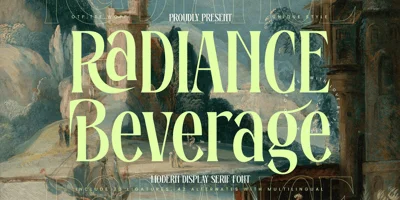
Radiance Beverage Font
Radiance Beverage Font is perfect for energy drink branding, refreshing juice packaging, sparkling water labels, vibrant cocktail menus, health beverage marketing, sports drink campaigns, and illuminating liquid refreshment projects.
What makes Radiance Beverage Font exciting is its energizing brilliance and liquid vitality, featuring luminous letterforms that capture the essence of refreshing hydration while delivering sparkling visual energy and beverage authenticity.
The Radiance Beverage Font family includes Light, Regular, Medium, Bold, and Heavy weights, plus sparkling variants and liquid-inspired alternates that enhance the font's radiant character and beverage possibilities.
Radiance Beverage Font embodies the invigorating essence of premium beverages and liquid refreshment through luminous typography design. This energizing typeface captures the sparkling vitality of refreshing drinks and the radiant energy of liquid nutrition, creating a vibrant visual language that speaks to beverage enthusiasts and health-conscious consumers who value refreshing hydration, energizing nutrition, and the revitalizing power of premium liquid refreshment. The font's radiant character and beverage appearance make it perfect for drink manufacturers, juice bars, and beverage brands that want to communicate freshness, energy, and the invigorating appeal of liquid vitality.
Beverage companies and refreshment brands consistently select Radiance Beverage Font for projects that require authentic beverage credibility and energizing visual appeal. The typeface's luminous construction and vibrant personality make it exceptionally effective for energy drink producers, juice manufacturers, and beverage retailers where refreshing vitality and liquid energy are paramount. Each character has been crafted with sparkling precision to ensure maximum radiance across all beverage applications and refreshment environments.
The refreshment advantages of Radiance Beverage Font extend beyond its beverage appeal to include practical functionality for diverse liquid nutrition applications. The font maintains excellent readability on beverage packaging while delivering the distinctive character that creates memorable refreshment experiences and connects with consumers seeking authentic liquid vitality. Its comprehensive character set includes beverage symbols and energizing elements that make it particularly suitable for drink documentation and liquid refreshment communication.
Energy drink companies, juice bars, and beverage manufacturers frequently choose Radiance Beverage Font because of its ability to instantly convey beverage authenticity and refreshing energy. The typeface's radiant aesthetic helps establish credibility in competitive beverage markets while appealing to consumers who value liquid nutrition, refreshing hydration, and the energizing experiences that come from premium beverage quality and revitalizing liquid refreshment.